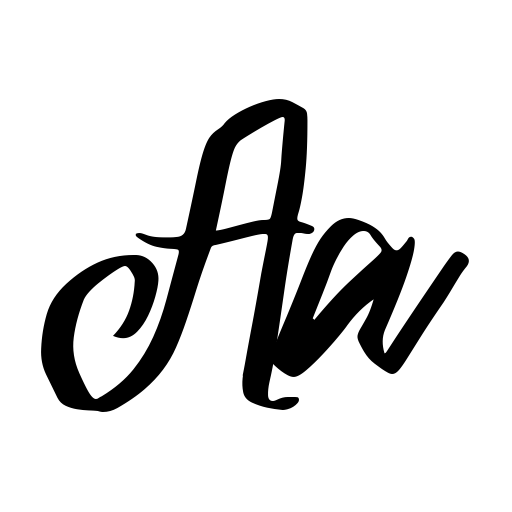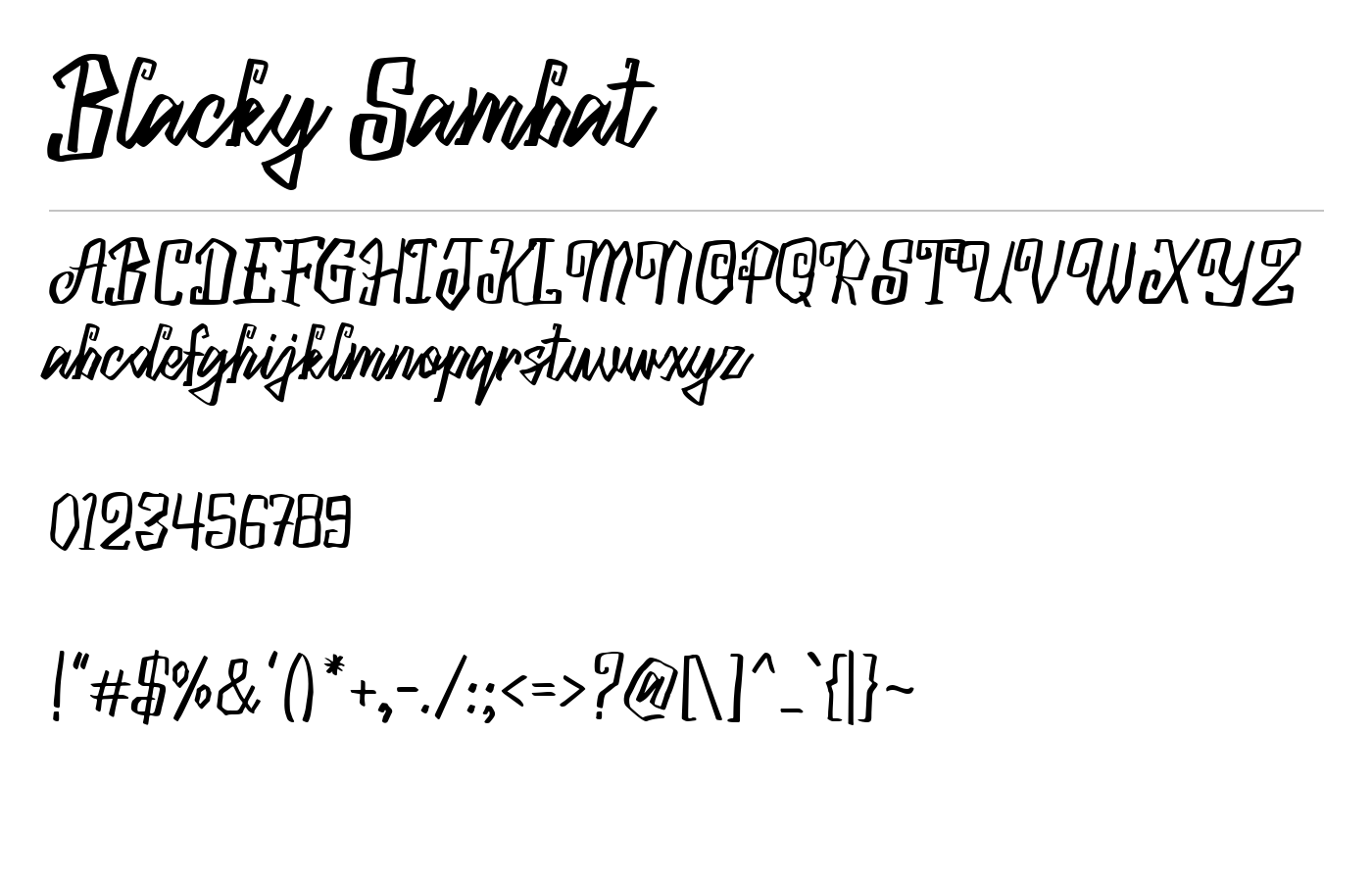
Blacky Sambat is a unique display font that blends bold, brush-like strokes with quirky, hand-drawn character shapes, giving it an energetic and creative flair. Its irregular forms and lively texture make it perfect for eye-catching headlines, artistic branding, and playful designs that want to stand out with personality and a handcrafted touch. This font works well where a modern yet informal style is desired, adding a dynamic and expressive vibe to any project.
Blacky Sambat Font
About Blacky Sambat Font
| Font family | Blacky Sambat Font |
| Designer | Wahyu Andi Prasetiyo |